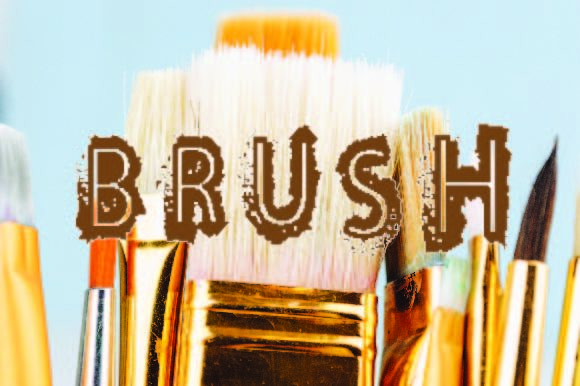
The Perfect Typography for a Coastal Vibe
Have you ever been strolling along the beach, feeling the warm sand between your toes and the cool ocean breeze in your hair, and suddenly, a wave of creativity crashes over you? For designers, those moments of inspiration are what drive us to create something truly special. And that’s exactly what happens when you discover the perfect typography to match the laid-back, carefree vibe of the beach.
Enter Beach Font, a display font that’s as unique as it is versatile. With its quirky, hand-drawn feel, Beach Font is the perfect addition to any design project that needs a touch of coastal charm. Whether you’re designing a beach-themed brochure, a travel website, or even a logo for a surf shop, Beach Font is sure to bring a smile to your face and a touch of whimsy to your design.
Key Features of Beach Font
- Font Family: Beach Font is a unique, hand-drawn font designed to evoke a sense of relaxation and tranquility. It features a combination of uppercase and lowercase letters, numbers, and punctuation marks.
- Character Set: The font includes over 200 characters, including a wide range of ligatures, swashes, and alternate characters to add visual interest and personality to your designs.
- Unique Characteristics: The font’s hand-drawn style and subtle imperfections give it a natural, organic feel that’s perfect for designs that need to convey a sense of relaxation, adventure, or playfulness.
Beach Font Review
Overall, I’d say Beach Font is a fun, playful choice for a project that needs a laid-back vibe. ✨ The font’s irregular shapes and rough textures do a great job of capturing the feeling of a beachy, natural setting.
- Unique texture and shape that adds to the beachy feel
- Good for use in headings or titles, where the boldness of the font really shines
- Can work well in combination with other fonts that have a more classic, elegant feel
However, there are a few things to be aware of. ⚠️ For one, the font can be a bit hard to read at smaller sizes, so you may need to bump up the font size or use it in conjunction with a clear, easy-to-read font for body text.
- May be difficult to read at smaller sizes
- Not ideal for use in body text, where clarity and readability are key
- May not be the best choice for projects where you need a professional, polished look
Overall, Beach Font is a fun and creative choice that can add a lot of personality to a project. Just be sure to use it thoughtfully and in conjunction with other fonts that can help balance out its more playful feel.
Beach Font is perfect for designs that evoke a sense of relaxation and fun. Common use cases include:
- Beach-themed invitations and social media graphics.
- Summer-themed posters and brochures.
- Beach-inspired logos and branding materials.